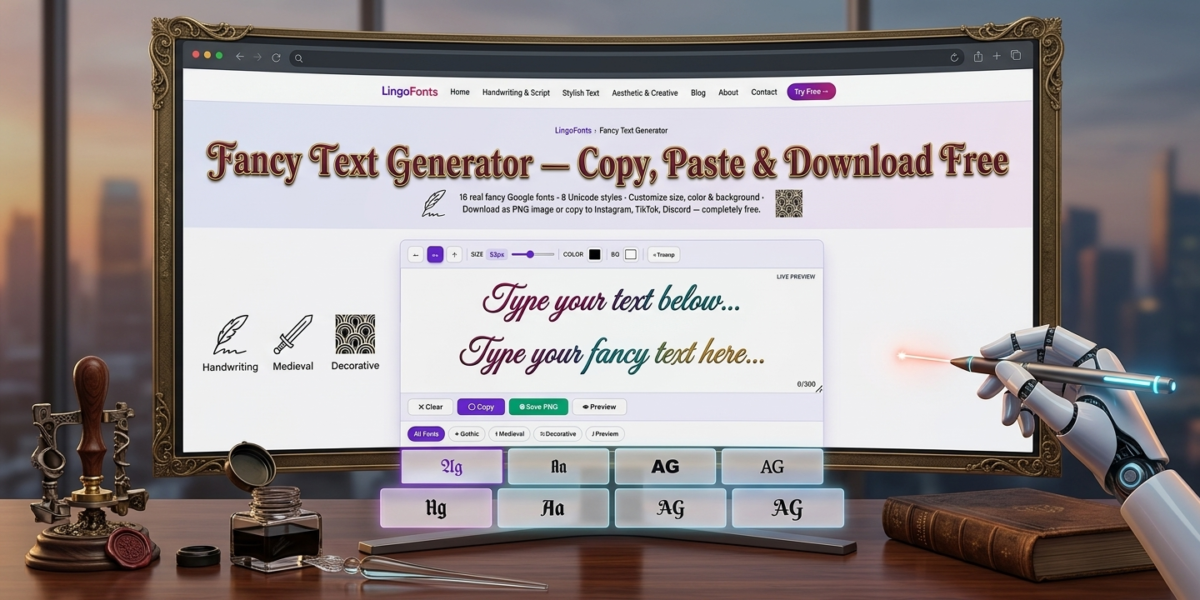
What Is a Fancy Text Generator?
A fancy text generator converts ordinary letters into stylized Unicode characters — bold, cursive, bubble, gothic, strikethrough, and dozens of other styles — that you can copy and paste anywhere. Unlike real fonts, these characters aren’t loaded from a font file. Each symbol comes from a different block in the Unicode standard, which is why fancy text displays correctly on almost any platform, from Instagram bios to Discord usernames, without installing anything.
This matters because most apps don’t let you upload custom fonts. A fancy text generator sidesteps that limit entirely: you’re not changing the font, you’re swapping each letter for a different Unicode character that happens to look stylized.
How Fancy Text Generators Work
Every character you type on a keyboard maps to a standard Unicode code point — the plain Latin alphabet lives in a small, well-known range. But Unicode also defines entire alternate alphabets for mathematical notation, historic scripts, and symbol sets. The Mathematical Alphanumeric Symbols block, for example, contains bold, italic, script, and double-struck versions of every letter, originally intended for writing equations.
A fancy text generator works by mapping each letter you type to its equivalent character in one of these alternate blocks. Type “hello,” and the tool looks up the bold, cursive, or bubble version of each letter and outputs the styled string — which is still just text, so it pastes cleanly into any text field that supports Unicode.
Common Fancy Text Styles You Can Generate
- Bold Unicode text — 𝐛𝐨𝐥𝐝 letters that stand out in bios and captions
- Bold italic — 𝙗𝙤𝙡𝙙 𝙞𝙩𝙖𝙡𝙞𝙘 for emphasis without changing your app’s font
- Script and cursive styles — flowing, handwritten-look Unicode letters
- Bubble and circled text — letters enclosed in circles, popular for usernames
- Square and boxed text — blocky, boxed letterforms
- Strikethrough and underline — text with a line through or beneath it
- Small caps — uniform small capital letters for a clean, formal look
- Upside-down text — flipped characters for novelty use
- Gothic and fraktur — old-style blackletter characters
- Double-struck (outline) text — hollow, outlined letterforms
Each of these draws from a different Unicode range, and a good generator lets you preview several at once so you can pick the one that fits your platform.
- Paste the styled text into your bio, caption, username, or message.
No sign-up, download, or font installation is required, since the output is standard Unicode text rather than an image or a custom font file.
Fancy Text vs. Real Fonts: What’s the Difference?
A real font changes how existing characters are drawn — the underlying letter “A” stays the same character, just rendered differently. Fancy text generators instead give you a different character that already looks stylized, regardless of which font the app uses to display it.
This is why fancy text works in places where you can’t upload or select a font — the styling is baked into the character itself. The trade-off is a smaller character set: some symbols, punctuation, or non-Latin letters may not have a styled Unicode equivalent, so they’ll often fall back to plain text.
Common Mistakes to Avoid
Using too many styles in one line. Mixing five different fancy fonts in a single bio looks cluttered rather than eye-catching. Stick to one or two styles for readability.
Assuming every platform renders Unicode identically. Most modern apps display fancy text correctly, but a small number of older systems or specific fonts may show empty boxes for certain characters. Test in the target app before finalizing.
Overusing fancy text in places meant for search. Search engines and some platforms treat stylized Unicode characters as different from their plain equivalents, which can hurt discoverability if used in searchable titles or hashtags.
Why do some fancy text characters show as boxes? That happens when the app or device you’re pasting into doesn’t have a font installed that includes that specific Unicode character. It’s rare with common styles like bold or italic but more common with rarer scripts.